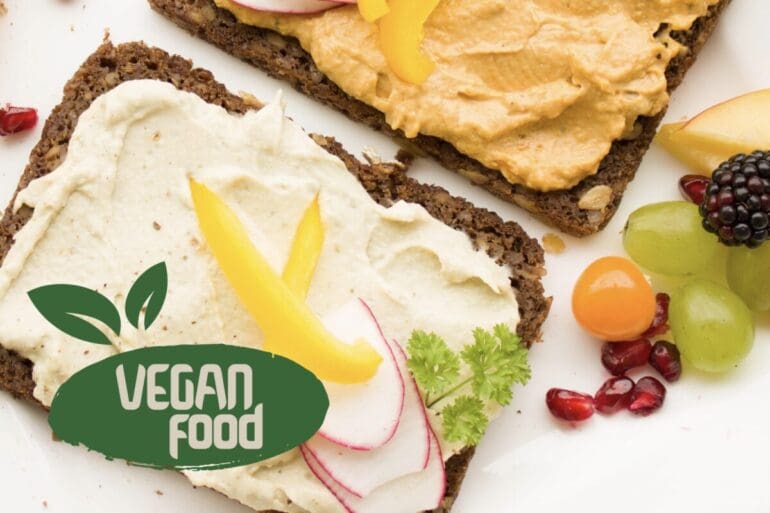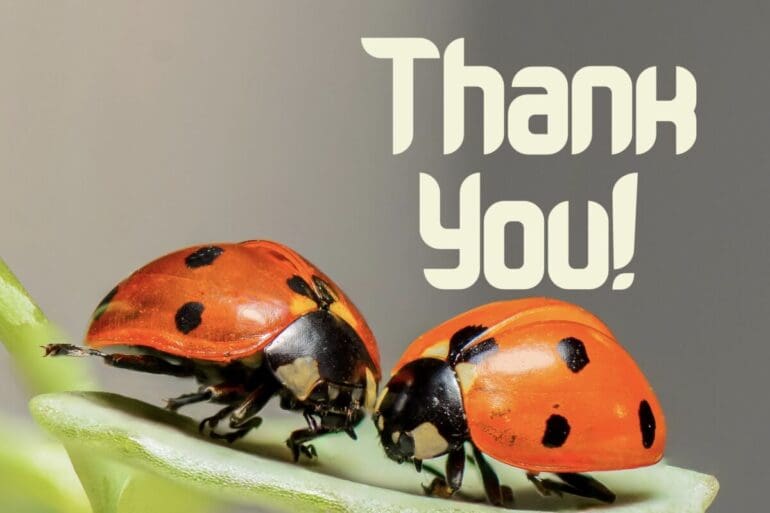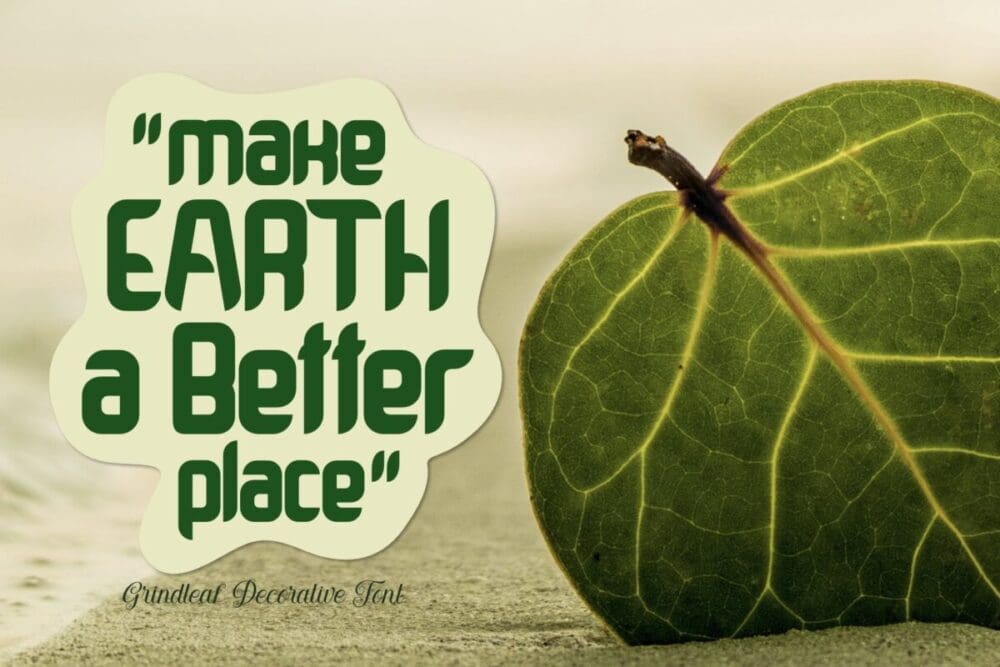
Grindleaf Font
Grindleaf Font. It was crafted by hand especially to add a natural handmade feeling in its brand identity then I make it clean with pentool.